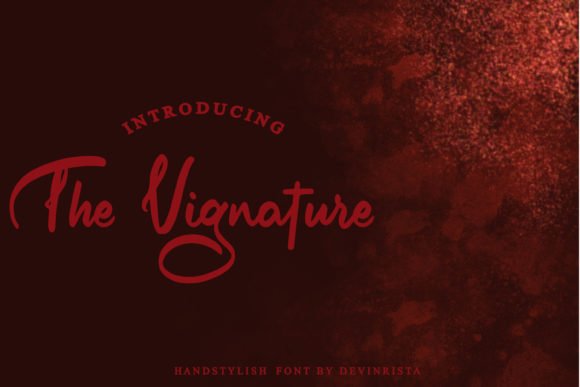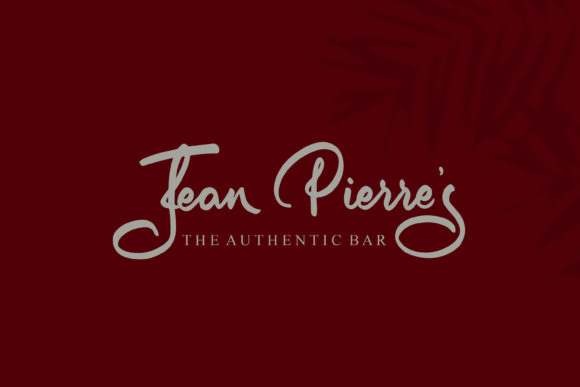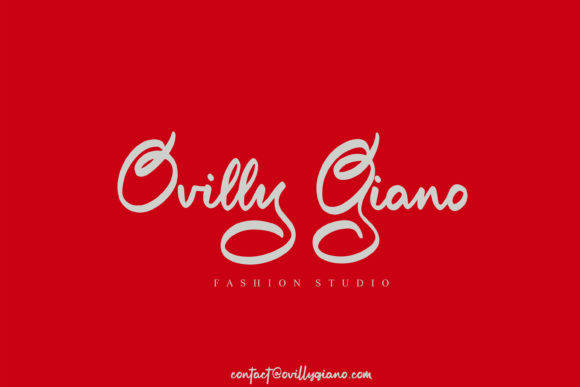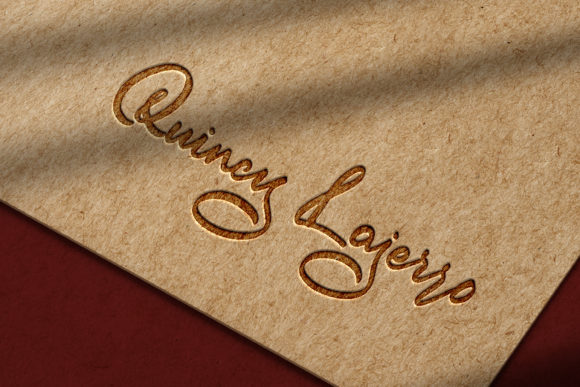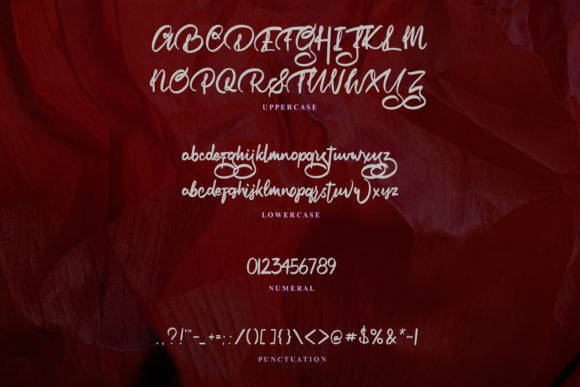
The Vignature Font
About The Vignature Font
The Vignature is a dainty and modern script font. Sweet, relaxed and delicate, this font will be ideal for each of your favorite creations.